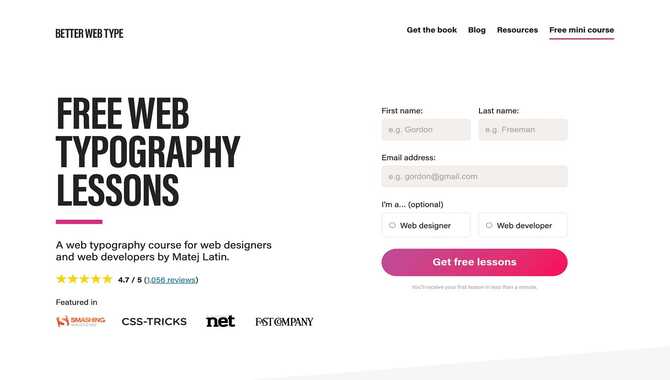
The right font is crucial for a website’s visual appeal and readability. Bulky fonts can be a great option to emphasize important information, draw attention to headlines, and make the text more readable for users.
With numerous free bulky fonts available online, selecting a font that aligns with Use Bulky Font On Your Website branding and design is essential. Do you want to add some personality and uniqueness to your web design? Then, bulky fonts might just be what you’re looking for.
We will introduce you to bulky fonts and how they can make a difference in the look and feel of your website. Moreover, we have curated a list of the top 5 bulky fonts you can use for your website. We will guide you on installing and using these fonts in your web design project, whether for logos, headlines, or paragraphs. So, download some free bulky fonts and make a bold statement with your website design.
Understanding Bulky Font
Bulky fonts are a great way to add emphasis and make your website stand out. They are bold and unique and draw attention to specific elements on your site. When used wisely, bulky fonts can convey a sense of strength, power, or importance.
However, selecting a bulky font that fits your website’s overall design and branding is important while considering factors such as legibility and readability. Using bulky fonts sparingly and strategically, you can create a visually appealing website that effectively communicates your message to visitors.
Top 5 Bulky Fonts For Your Website
Regarding typography, the bulky font can be a great option for making a bold statement. These fonts are typically thick and heavy, which can help them stand out on a page or screen. They work well for headlines and titles, grabbing the reader’s attention and conveying a sense of strength or power.
When it comes to choosing the perfect bulky font for your website, there are countless options available. However, not all bulky fonts are created equal, and selecting the right one can significantly impact your site’s overall look and feel. This section explores the top 5 bulky fonts to make your website stand out.
1. Bebas Neue
Your chosen font can make all the difference when creating bold and impactful designs. Bebas Neue is a popular bulky font used in a wide range of design projects, from posters and logos to web graphics and more. This sans-serif font features thick lines and tall letters that command attention and make a statement.
Its strong, bold appearance makes it a great choice for headlines and titles, while its simplicity and readability ensure that it remains legible even at smaller sizes. Whether you’re looking to create a striking logo or add some punch to your website’s typography, Bebas Neue is definitely worth considering as a go-to bulky font.
2. Oswald
Oswald is a popular font known for its bold and commanding presence. Its wide, thick letterforms convey a sense of strength and authority that makes it perfect for headlines and titles. Despite its bulkiness, Oswald maintains a sense of elegance and sophistication that sets it apart from other heavy fonts. It’s also a versatile font in various contexts, from print to digital media. Whether you’re designing a logo or creating a poster, Oswald is sure to make an impact with its bold and memorable style.
3. Montserrat
Montserrat is a popular bulky font that has gained popularity in recent years. It is a sans-serif typeface designed by Julieta Ulanovsky in 2010 and is inspired by the signage found in Montserrat, a neighborhood in Buenos Aires, Argentina. The font features wide letterforms and bold strokes, which make it highly legible and readable even at smaller sizes. It has been used in various contexts, from branding and advertising to web design and print publications. Montserrat is definitely worth considering if you’re looking for a bold, modern font that will make an impact.
4. Roboto Slab
When choosing a font for your design project, Roboto Slab is a great option for those looking for a bulky font. This font has a strong and sturdy appearance, making it perfect for headlines and titles that need to make a bold statement. The slab serif style adds extra weight to the letters, giving them a commanding presence on the page. Additionally, Roboto Slab is highly legible, ensuring that your audience will easily understand your message. So whether you’re designing a poster or creating branding materials, consider using Roboto Slab to add bulk and impact to your design.
5. Lato
Lato is a popular option for those looking for a bulky or bold style when choosing a font. Designed by Łukasz Dziedzic, Lato is a sans-serif typeface with a strong presence on the page. It’s thick strokes and rounded edges give it a modern and approachable look, making it suitable for various design applications.
Additionally, Lato has an extensive range of weights and styles, allowing for versatility in design projects. Whether designing a website or creating printed materials, Lato’s bold and bulky aesthetic can help your text stand out and command attention.